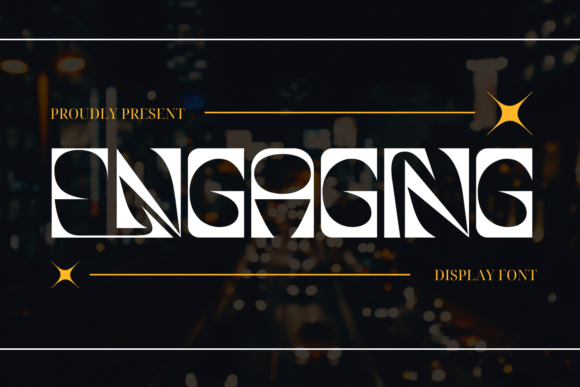
Introducing Engaging Stencil Font: Elevate Your Designs with a Modern Twist
In the world of typography, fonts play a crucial role in conveying the tone and personality of a design. When it comes to creating visually appealing and engaging content, the right font can make all the difference. This is where Engaging Stencil Font comes into play – a modern display font that seamlessly blends contemporary style with a touch of elegance. In this article, we’ll dive into the features, benefits, and uses of Engaging Stencil Font, and explore how it can elevate your designs to the next level.
The Unique Characteristics of Engaging Stencil Font
Engaging Stencil Font is a unique and modern display font that boasts a range of distinctive features. One of its standout characteristics is its tall, sharp edge stroke, which gives it a crisp and clean look. The font also comes with fun and playful character alternates, allowing you to add an extra creative touch to your designs. With Engaging Stencil Font, you can create a wide range of designs, from kids and children-themed projects to logos, posters, packaging, and more.
Key Features of Engaging Stencil Font:
- Tall sharp edge stroke: Giving the font a crisp and clean look
- Fun character alternates: Allowing for extra creative flexibility
- 100 ligatures: Providing a range of unique character combinations
- Alternate characters: Offering a range of options for customizing your designs
The Perfect Match for Kids and Children-Themed Designs
Engaging Stencil Font is particularly well-suited for kids and children-themed designs. Its playful and fun characteristics make it an ideal choice for projects aimed at a younger audience. Whether you’re creating educational materials, children’s books, or promotional materials for kids’ products, Engaging Stencil Font is sure to delight. Its tall, sharp edge stroke and fun character alternates give it a youthful and energetic feel that’s sure to capture the attention of kids and parents alike.
Example Use Cases for Engaging Stencil Font:
- Kids’ educational materials: Create engaging and interactive learning resources
- Children’s books: Add a playful touch to your storybooks and illustrations
- Kids’ product branding: Develop a fun and youthful brand identity for kids’ products
- Party invitations and decorations: Create festive and eye-catching party materials
Ideal for Logos, Posters, Packaging, and More
Engaging Stencil Font is not just limited to kids and children-themed designs. Its versatility and range of features make it an excellent choice for a wide range of creative projects. Here are some examples of how you can use Engaging Stencil Font:
Example Projects for Engaging Stencil Font:
- Logos and branding: Create a unique and memorable brand identity
- Posters and flyers: Design eye-catching promotional materials
- Packaging design: Add a touch of personality to your product packaging
- Banners and signage: Create bold and attention-grabbing displays
The Benefits of Using Engaging Stencil Font
So why choose Engaging Stencil Font for your next design project? Here are just a few benefits of using this versatile and engaging font:
Benefits of Engaging Stencil Font:
- Unique and memorable designs: Stand out from the crowd with Engaging Stencil Font’s distinctive style
- Flexibility and versatility: Use the font for a wide range of projects and applications
- Easy to use and customize: Take advantage of OpenType features and character alternates
- High-quality and professional: Deliver high-quality designs that impress
In conclusion, Engaging Stencil Font is a modern display font that offers a unique blend of style, elegance, and playfulness. With its tall sharp edge stroke, fun character alternates, and range of features, it’s the perfect choice for a wide range of creative projects. Whether you’re designing for kids, creating logos and branding, or developing promotional materials, Engaging Stencil Font is sure to elevate your designs to the next level. So why wait? Try Engaging Stencil Font today and discover the power of engaging typography!